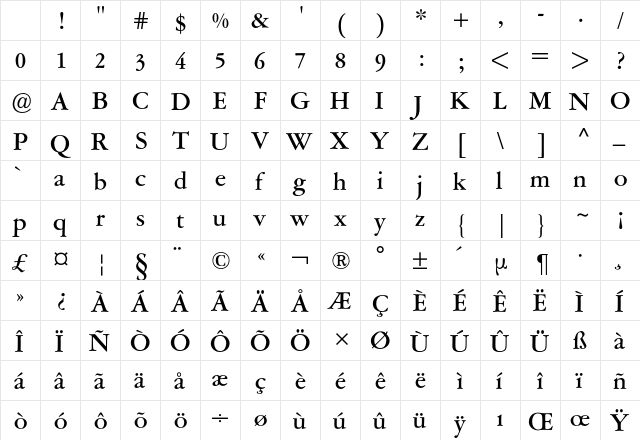
Garamont Amsterdam BQ Regular
Garamont Amsterdam BQ Family
Garamont Amsterdam BQ Regular
Garamont Amsterdam BQ Regular Font Preview
Garamont Amsterdam BQ Regular Uppercase Preview
Garamont Amsterdam BQ Regular Lowercase Preview
Garamont Amsterdam BQ Regular Numeric Preview
Garamont Amsterdam BQ Regular Character Map
Complete Garamont Amsterdam BQ Regular glyph index. Displaying only characters natively supported by Garamont Amsterdam BQ Regular font.
Design Context for Garamont Amsterdam BQ
Garamont Amsterdam BQ is a composed and adaptable typeface that performs quietly and consistently across a wide range of design contexts.